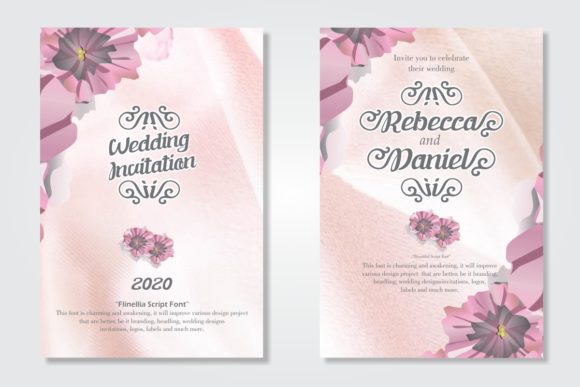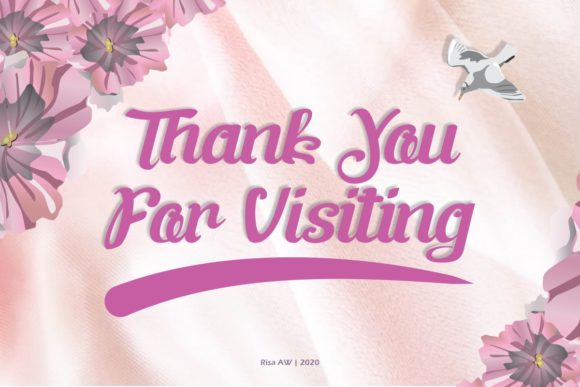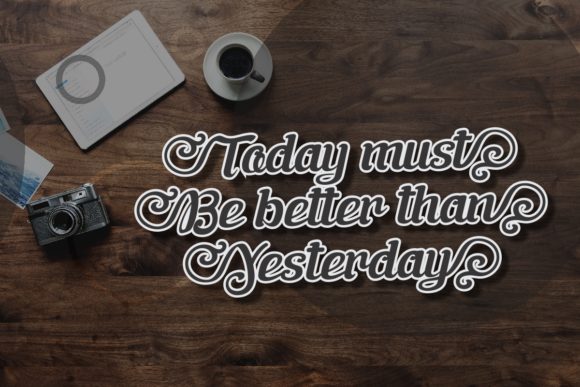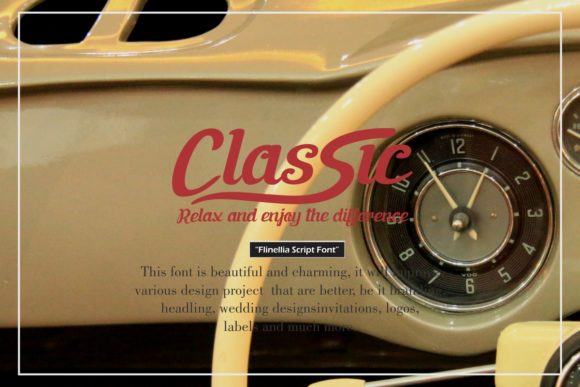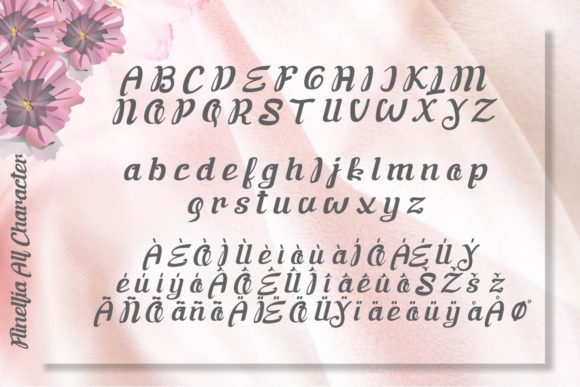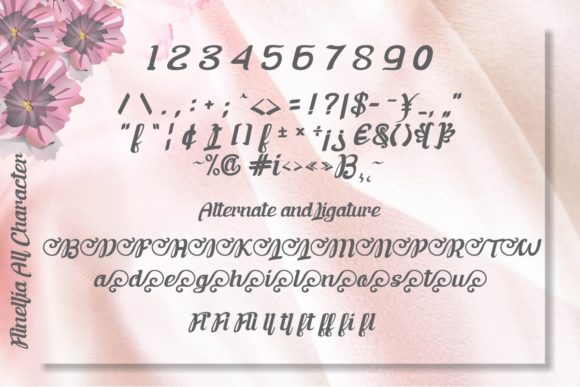
Introducing Flinellia Font: The Ultimate Choice for Elegant and Charming Designs
Are you a designer, crafter, or DIY enthusiast looking for a font that can elevate your creative projects to the next level? Look no further than Flinellia Font, a beautiful handwritten script that exudes charm and elegance. In this article, we’ll explore the features and benefits of Flinellia Font, and why it’s the perfect choice for your next design or crafting project.
What is Flinellia Font?
Flinellia Font is a stunning handwritten script that is both elegant and charming. Its unique lettering style is reminiscent of traditional calligraphy, but with a modern twist that makes it perfect for a wide range of creative projects. Whether you’re looking for fonts for Instagram, crafting DIY projects, or designing professional materials, Flinellia Font is the perfect choice.
Key Features of Flinellia Font
- Handwritten script: Flinellia Font is a genuine handwritten script, giving it a personal and authentic feel that’s perfect for creative projects.
- Elegant and charming: The font’s unique lettering style is both elegant and charming, making it perfect for designs that require a touch of sophistication.
- Versatile: Flinellia Font can be used for a wide range of creative projects, from Instagram fonts to calligraphy scripts for DIY projects.
- Easy to read: Despite its elegant and cursive nature, Flinellia Font is easy to read, making it perfect for designs that require a clear and legible font.
Why Choose Flinellia Font?
So why choose Flinellia Font over other fonts? Here are just a few reasons:
- Unique and distinctive: Flinellia Font is a one-of-a-kind font that will set your designs apart from the rest.
- High-quality: Flinellia Font is a high-quality font that is designed to produce crisp and clear results, even at small sizes.
Uses for Flinellia Font
Flinellia Font is a versatile font that can be used for a wide range of creative projects, including:
- Instagram fonts: Add a touch of elegance and charm to your Instagram posts with Flinellia Font.
- Calligraphy scripts: Use Flinellia Font to create beautiful calligraphy scripts for DIY projects, such as wedding invitations, greeting cards, and more.
- Design projects: Flinellia Font is perfect for a wide range of design projects, from brochures and flyers to logos and branding materials.
- Crafting projects: Use Flinellia Font to add a personal touch to your crafting projects, such as scrapbooking, journaling, and more.
| Font Name | Flinellia Font |
| Author | Garapke Studio |
In conclusion, Flinellia Font is a beautiful and versatile font that is perfect for designers, crafters, and DIY enthusiasts. Its unique lettering style, elegant and charming feel, and ease of use make it the perfect choice for a wide range of creative projects. Whether you’re looking for fonts for Instagram, calligraphy scripts for DIY projects, or a font for your next design project, Flinellia Font is the ultimate choice.